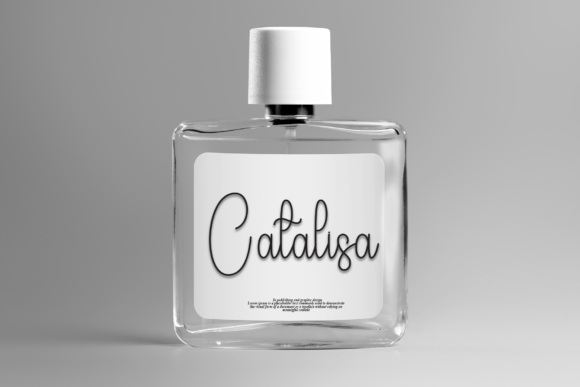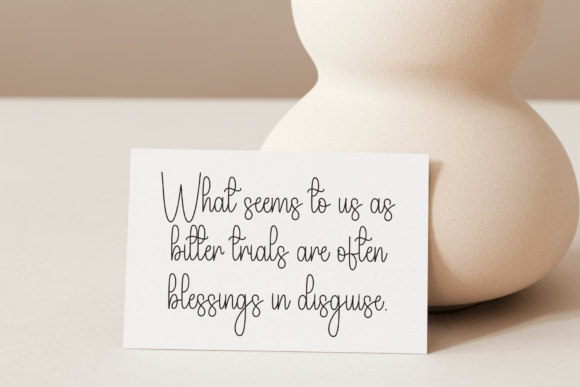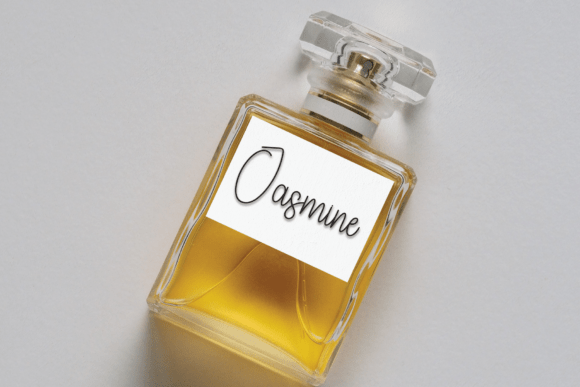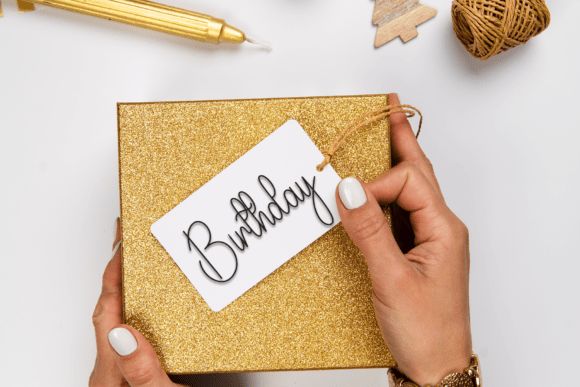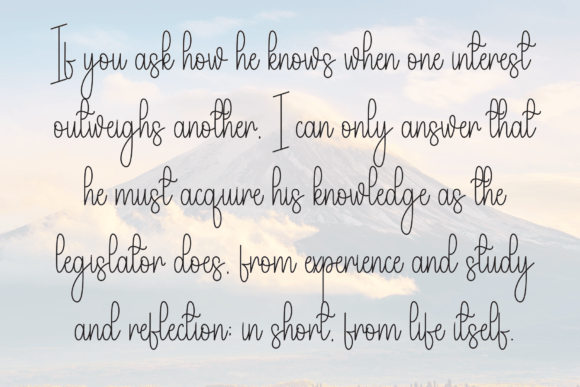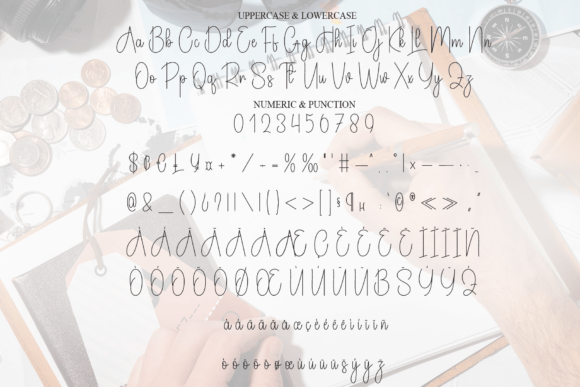
The Elegance of Autography Font: A Designer’s New Best Friend
I’ll never forget the time I was working on a wedding invitation project, and my client asked for a font that was both elegant and playful. I scoured the internet, tried out dozens of fonts, but nothing seemed quite right. That was until I stumbled upon Autography Font. With its flowing curves and natural rhythm, it captured the essence of what I was looking for – a font that exudes warmth, sophistication, and creativity. In this article, I’ll share my experience with Autography Font, its features, and how to make the most of it in your designs.
An Honest Review of Autography Font
- ✨ Elegant and playful at the same time – a rare combination!
- ✅ Flowing curves and natural rhythm that add a personal touch to any project
- 💫 Perfect for invitations, branding, and social media
- 🎨 Highly versatile and can be used for a wide range of creative projects
While Autography Font is an excellent choice for many projects, there are a few things to keep in mind:
- ⚠️ May not be the best choice for very small font sizes, as some details may get lost
- 🤔 Limited availability of certain characters or glyphs, but this can be addressed with OpenType features
The Story Behind Autography Font
Autography Font was designed with the intention of capturing the elegance and playfulness of handwritten script fonts. The designer, inspired by the flowing curves of calligraphy, aimed to create a font that would add a personal touch to any project. With its natural rhythm and sophisticated feel, Autography Font has become a popular choice among designers and crafters.
Q: What is Autography Font best suited for?
A: Autography Font is perfect for invitations, branding, social media, and any creative project that requires a personal touch.